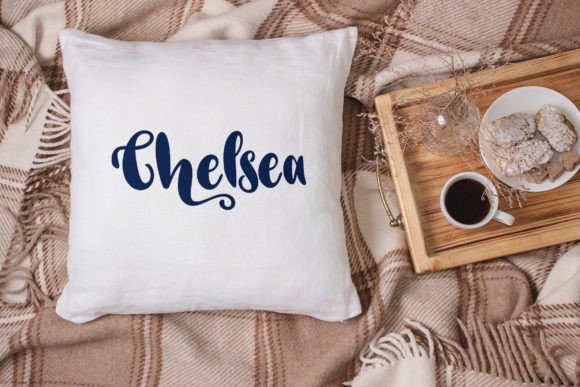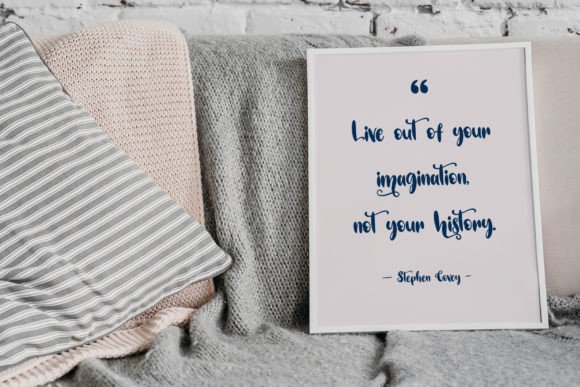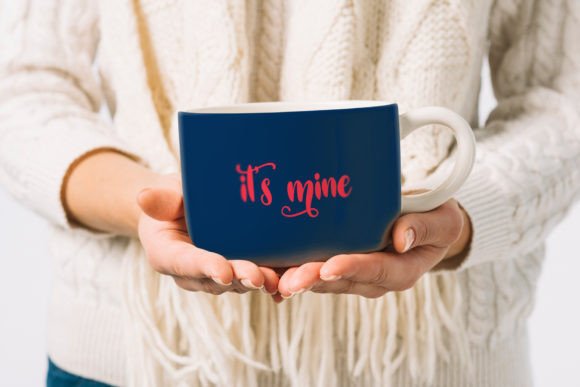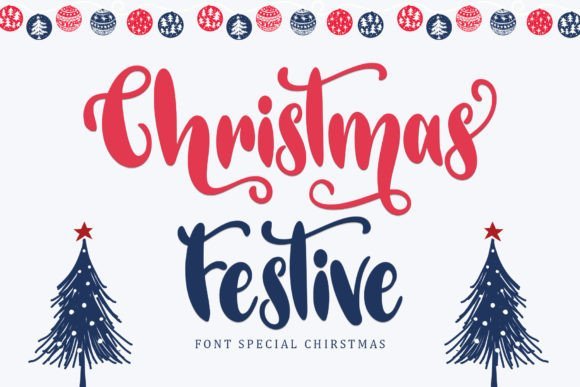
Introduction to Christmas Festive Font
Christmas Festive is a sweet and adorable handwritten script font.
Key Features of Christmas Festive Font
Why Choose Christmas Festive Font?
Christmas Festive Font offers exceptional quality and versatility, making it a valuable addition to your design toolkit. Whether you’re creating for personal projects or commercial use, Christmas Festive Font delivers professional results.